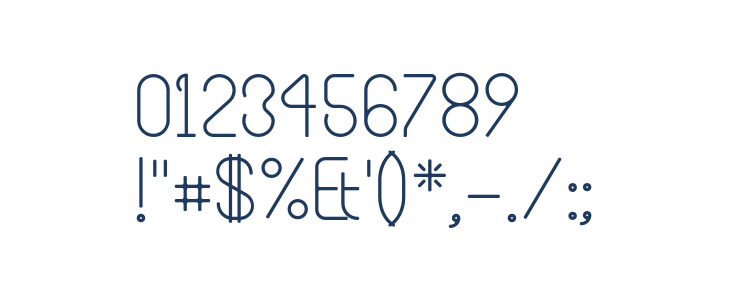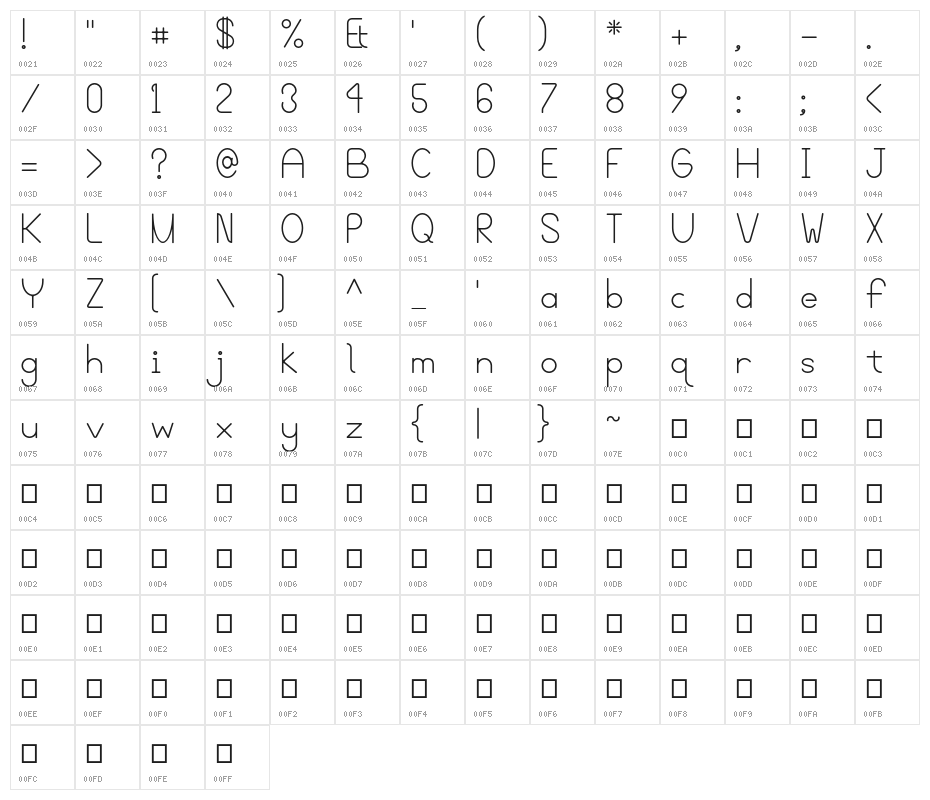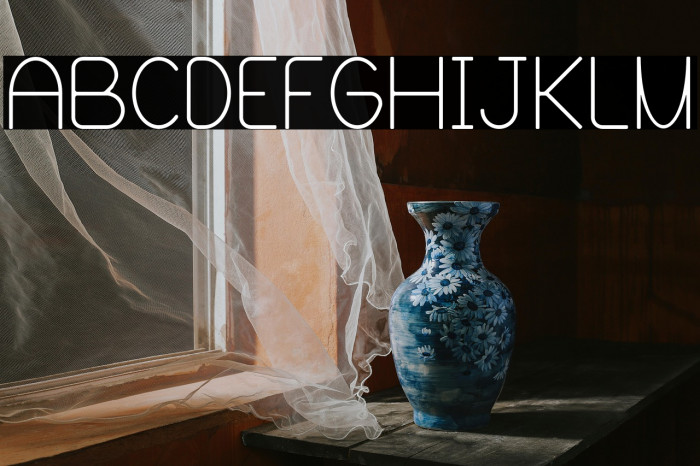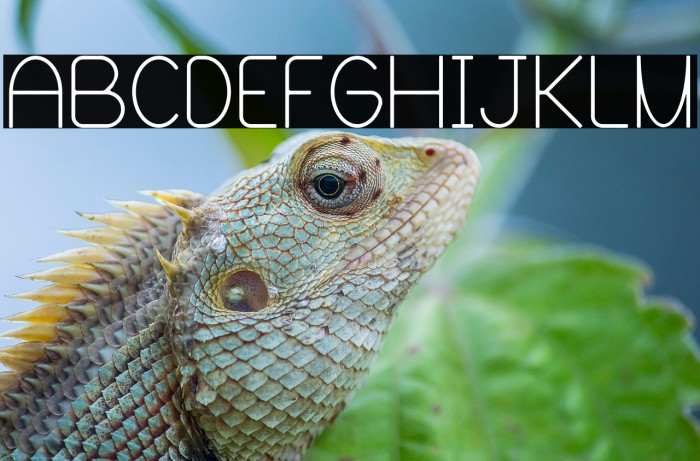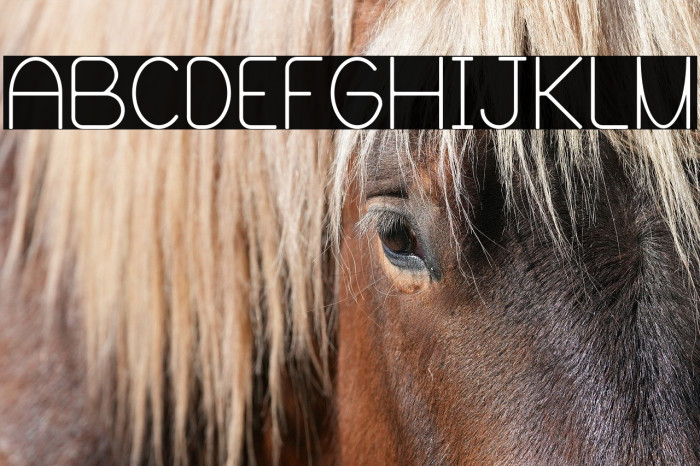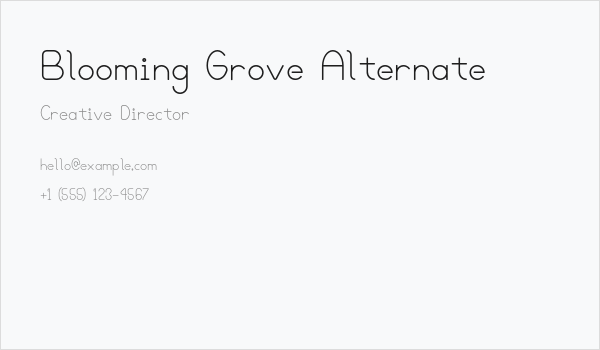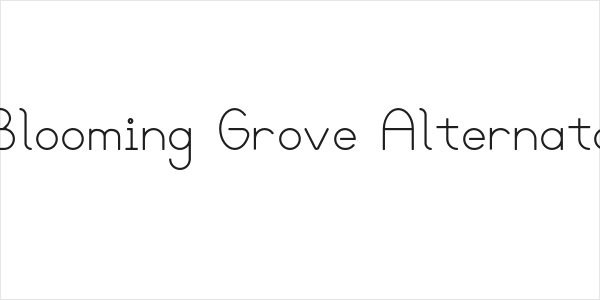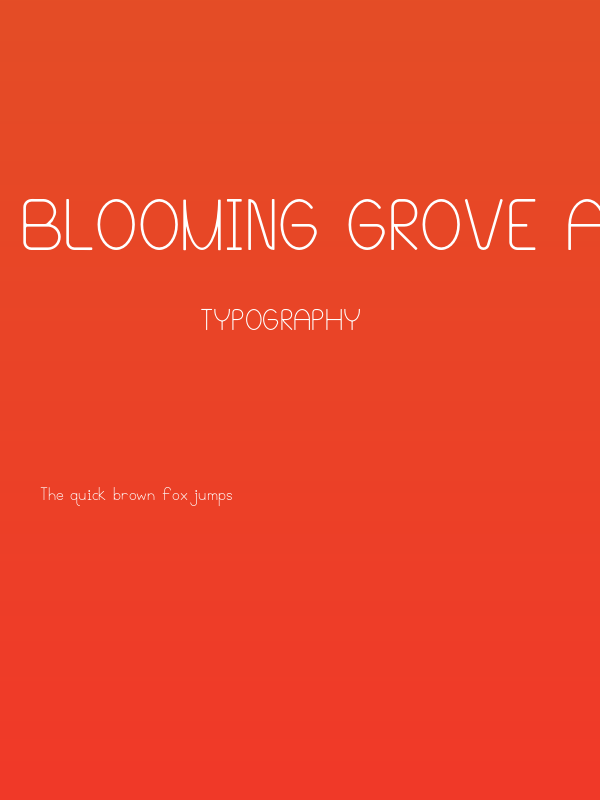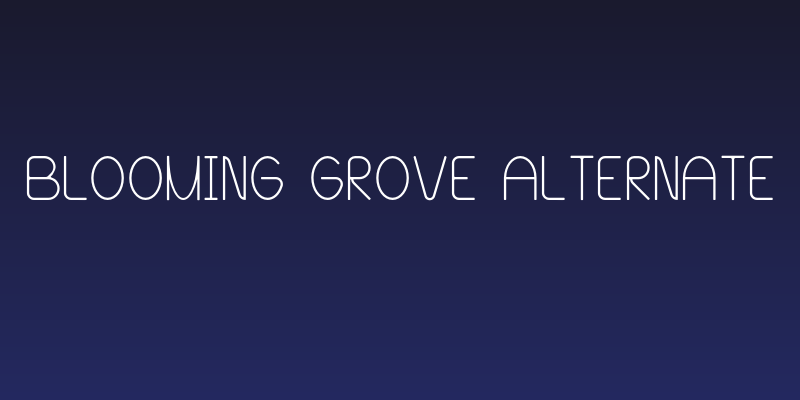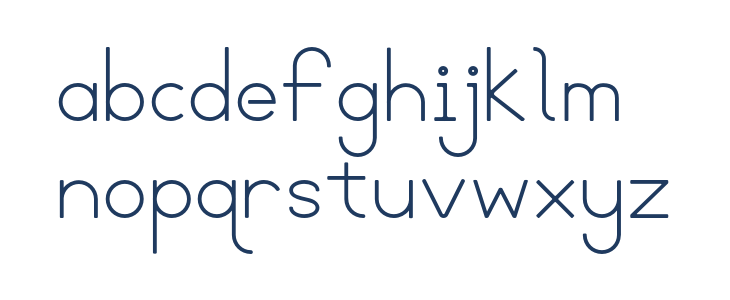
Blooming Grove Alternate Font
Blooming Grove Alternate Description
This font features a clean and modern design with a geometric structure. The characters are composed of simple lines and curves, creating an airy and open feel. The uppercase letters are tall and narrow, while the lowercase letters maintain a consistent height, contributing to a harmonious appearance. The numerals are rounded and align well with the overall style. Special characters are distinct and maintain the font's minimalist aesthetic. This font is versatile, suitable for both digital and print media, and can be used to convey a contemporary and approachable tone.